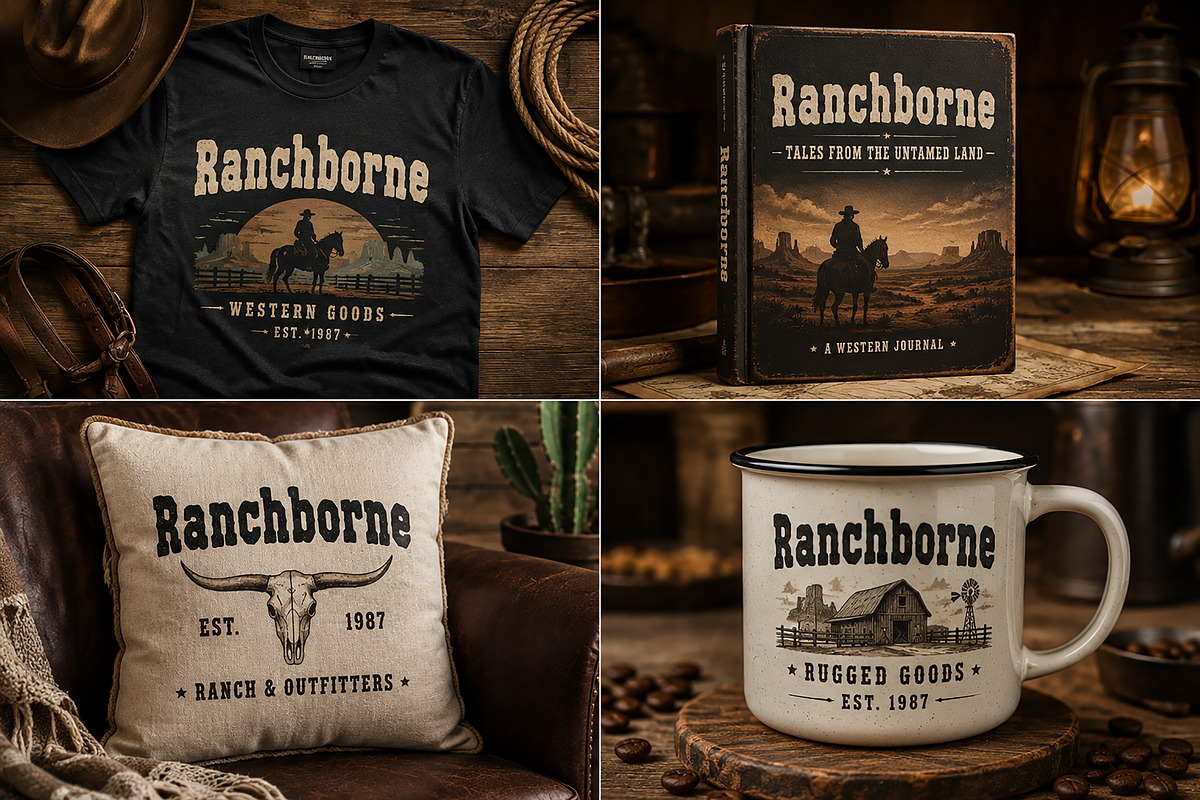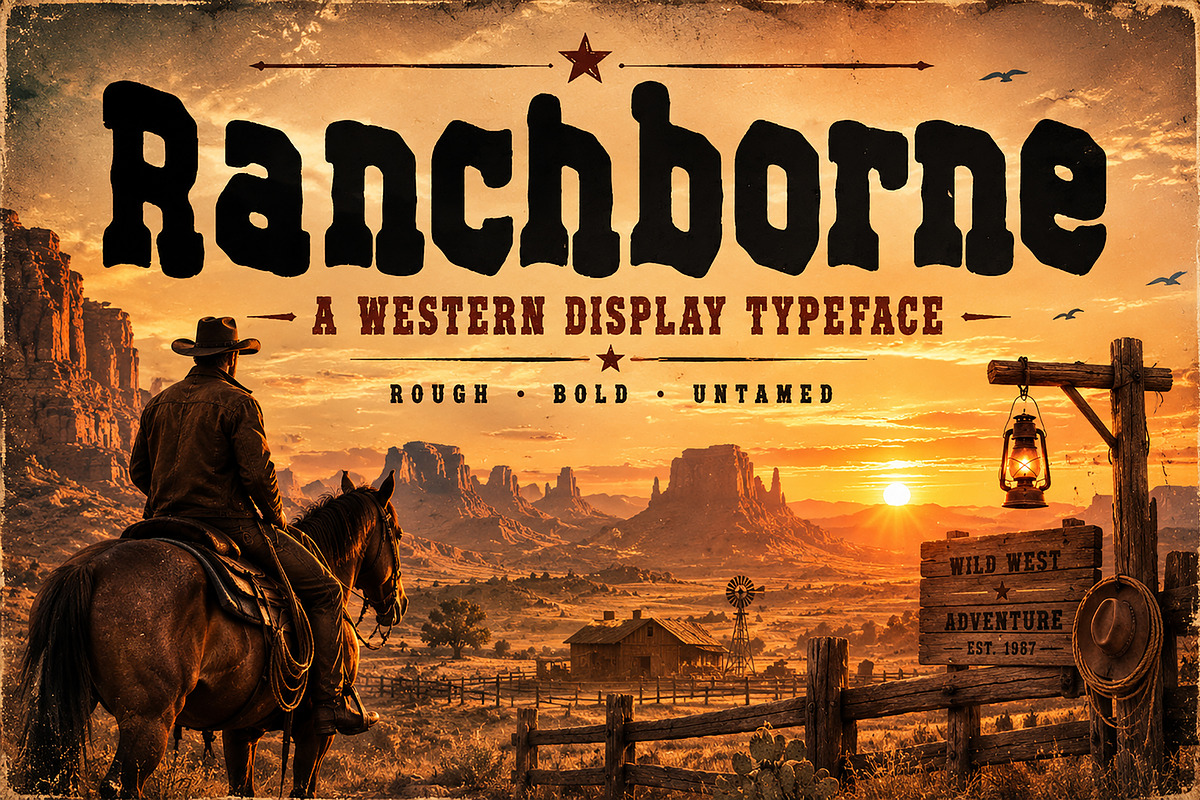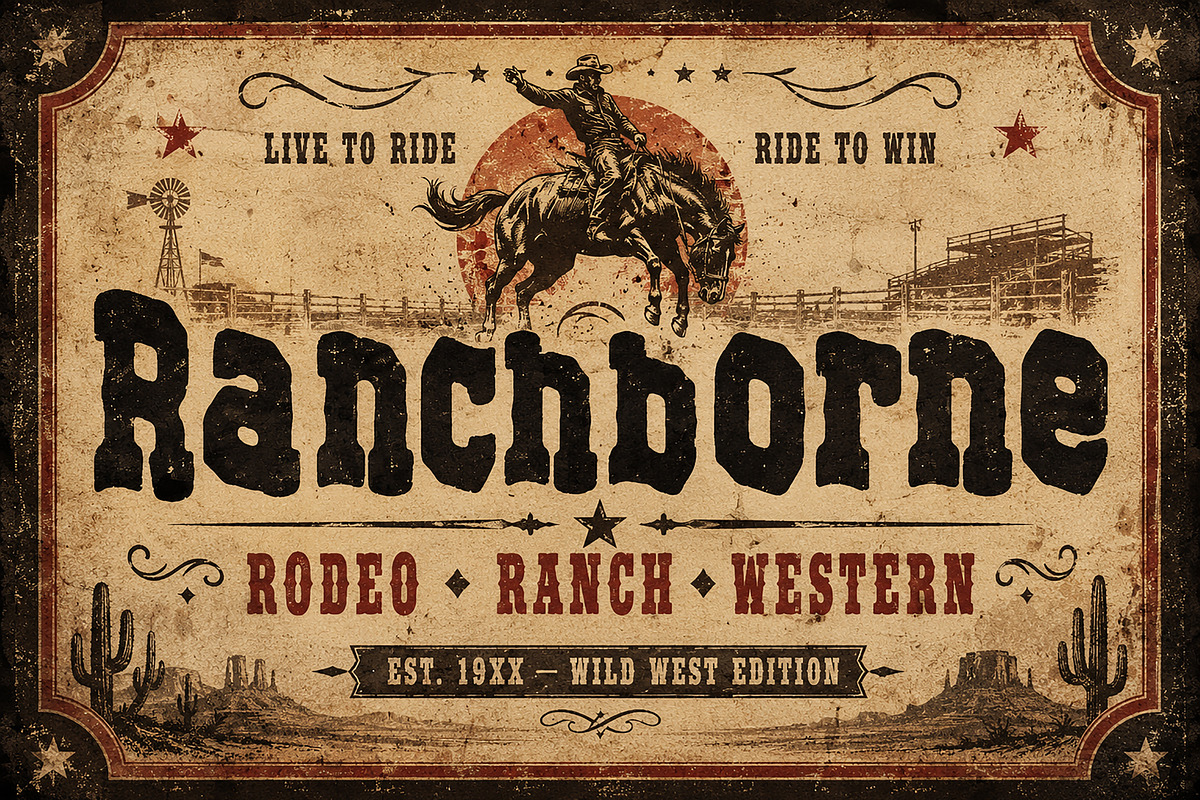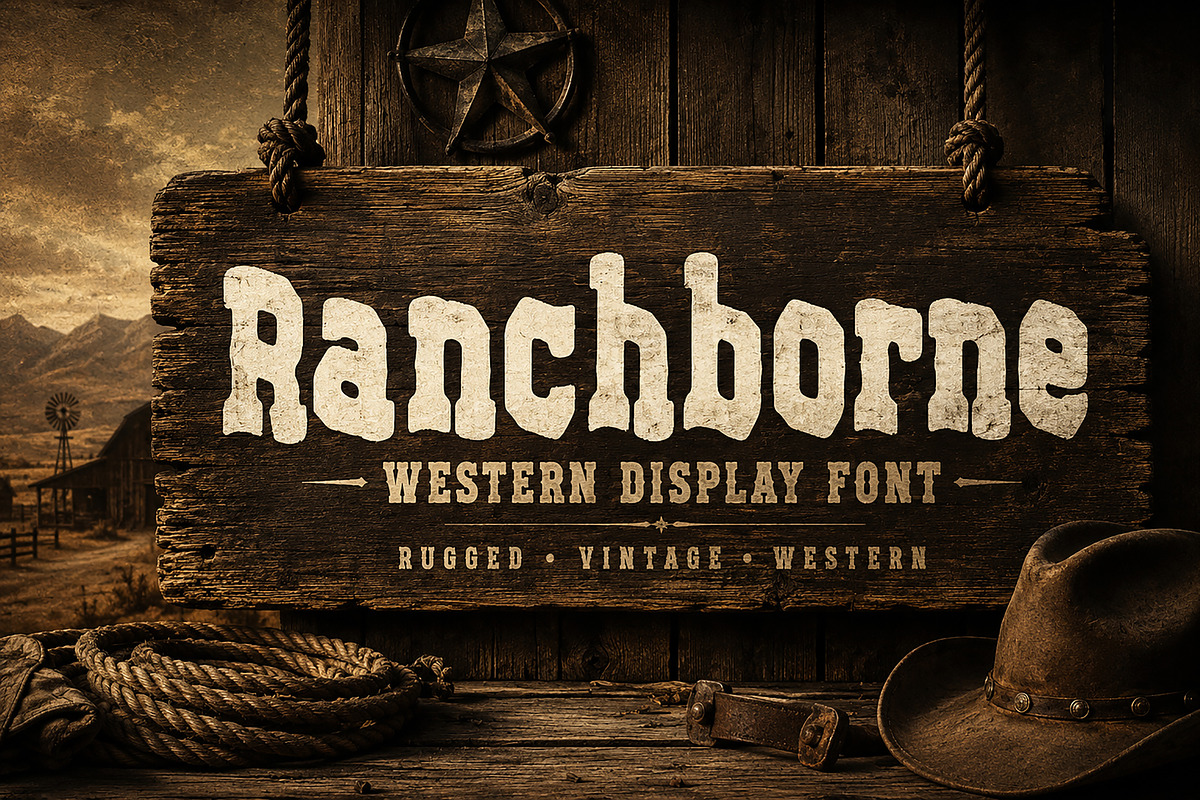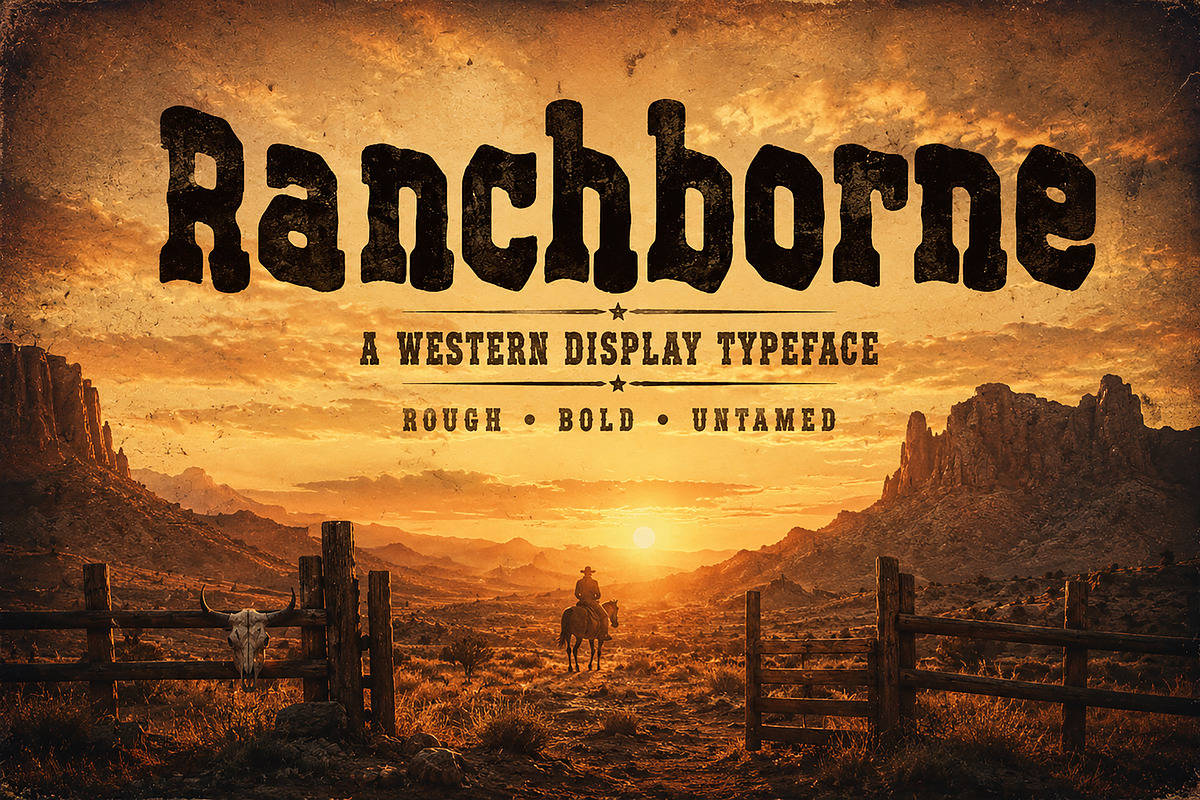
Ranchborne
Ranchborne is a bold and rugged Western display font inspired by the timeless spirit of the American frontier. With its heavy, distinctive letterforms and vintage character, Ranchborne brings an authentic ranch, rodeo, and Wild West atmosphere to your designs.
Perfect for creating strong and memorable logos, branding, apparel designs, posters, badges, labels, packaging, book covers, merchandise, signage, social media graphics, and vintage Western artwork.
Its powerful display style works especially well for projects that need a rugged, adventurous, vintage, and handcrafted feel.
Western & Ranch Branding
Cowboy & Rodeo Designs
T-Shirt & Apparel Graphics
Vintage Posters
Logos & Badges
Labels & Packaging
Book & Album Covers
Signs & Merchandise
Outdoor & Adventure Branding
Rustic & Americana Designs
Bring a bold frontier attitude to your next creative project with Ranchborne.